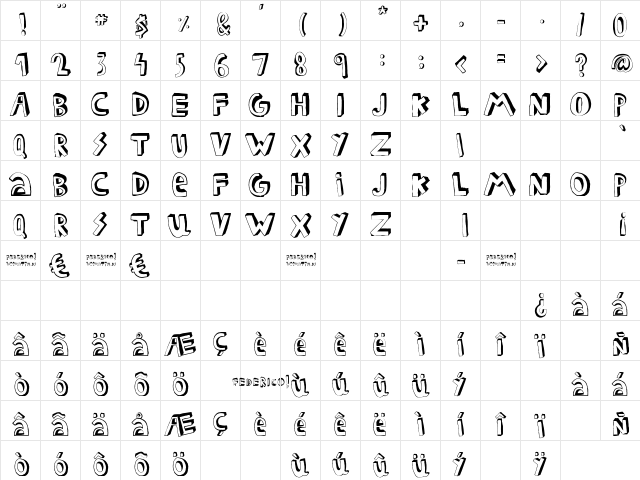
FEDERICO Regular
Design Context for FEDERICO Typeface
FEDERICO is a composed and adaptable typeface that performs quietly and consistently across a wide range of design contexts.